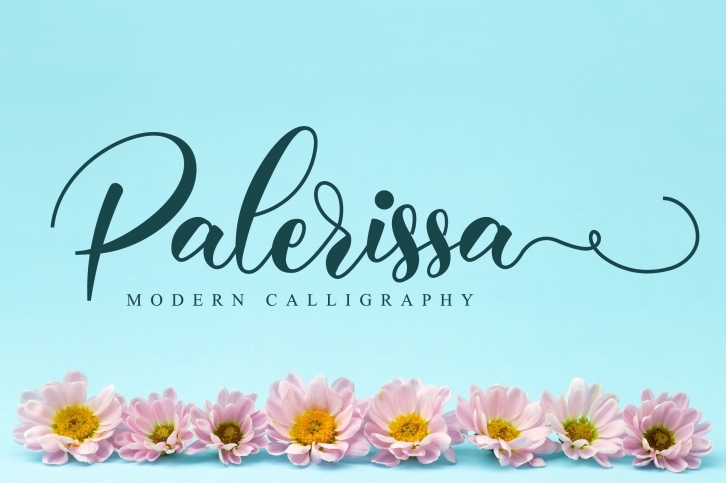
Palerissa Script is a great font that was designed by Nissa Studio. Imagine the amount of combinations you can create using this font! The archive is 10.79 MB and it was released on September 14, 2020. Palerissa Script looks beautiful on wedding invitations, greeting cards, logos, posters, labels, t-shirt designs, logos, business cards and is perfect for use in ink or watercolor works, fashion, magazines, packaging and food menus, children's books and more!